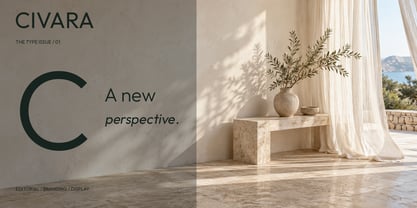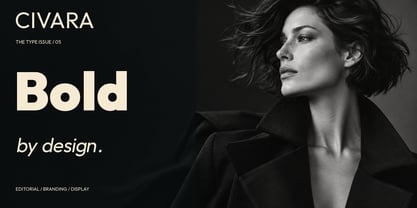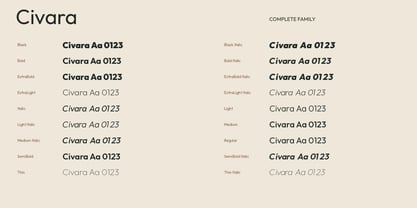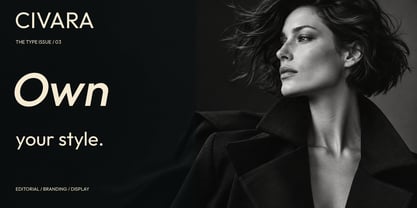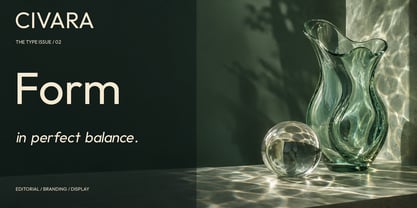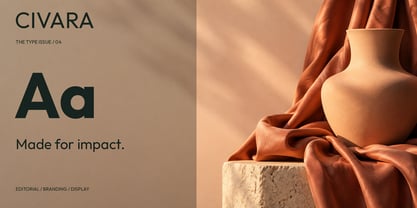
Civara
by MD-Type
The Civara Font Family was designed by Mehmet Dogan and published by MD-Type. Civara contains 18 styles and family package options. More about this family
Civara is a contemporary geometric sans serif typeface family with circular forms, clean lines and a confident editorial character. The family includes 18 styles, ranging from Thin to Black with matching italics.
Its balanced proportions and clear construction make Civara suitable for magazines, branding, headlines, packaging, posters, advertising and digital design. The lighter weights create an airy and refined rhythm, while the heavier styles provide strong presence for display typography.
Civara is designed as a flexible family for modern visual identities and expressive editorial compositions.